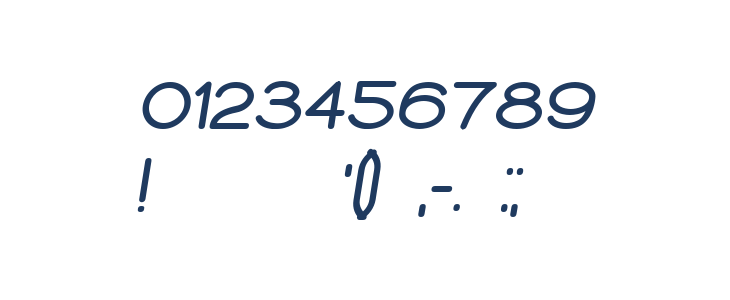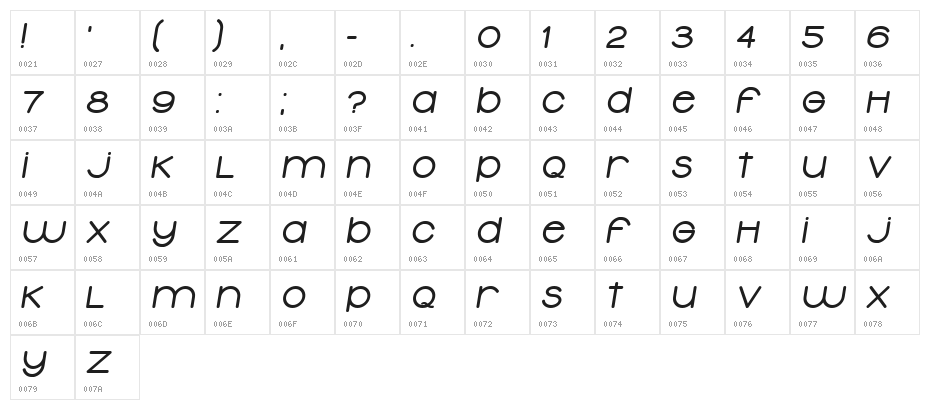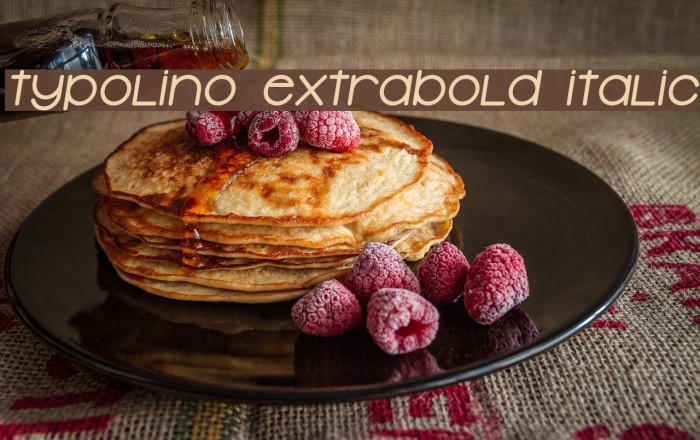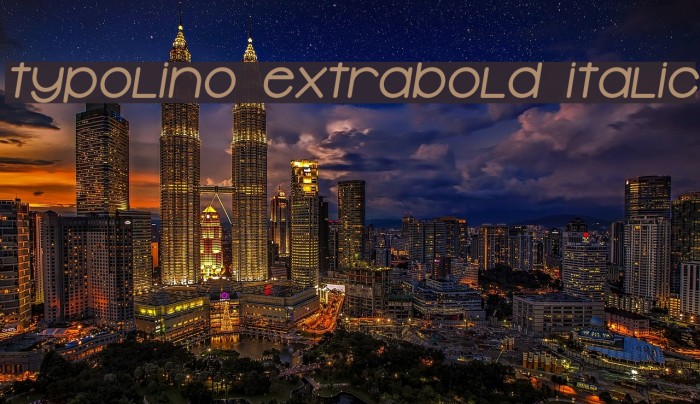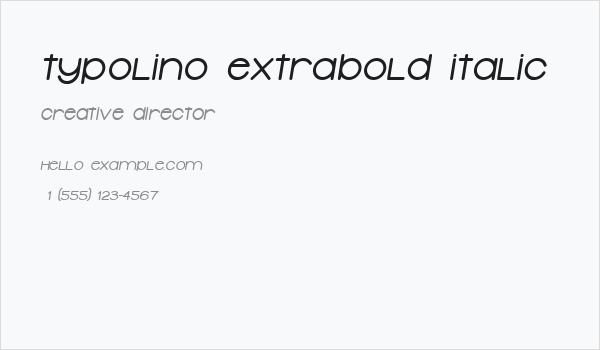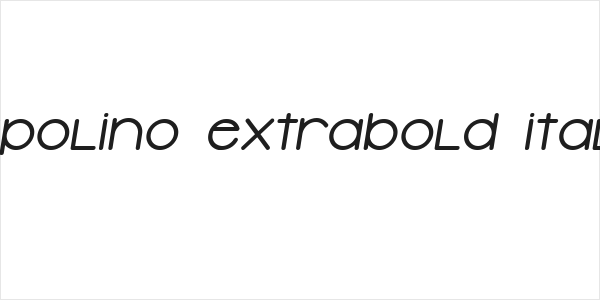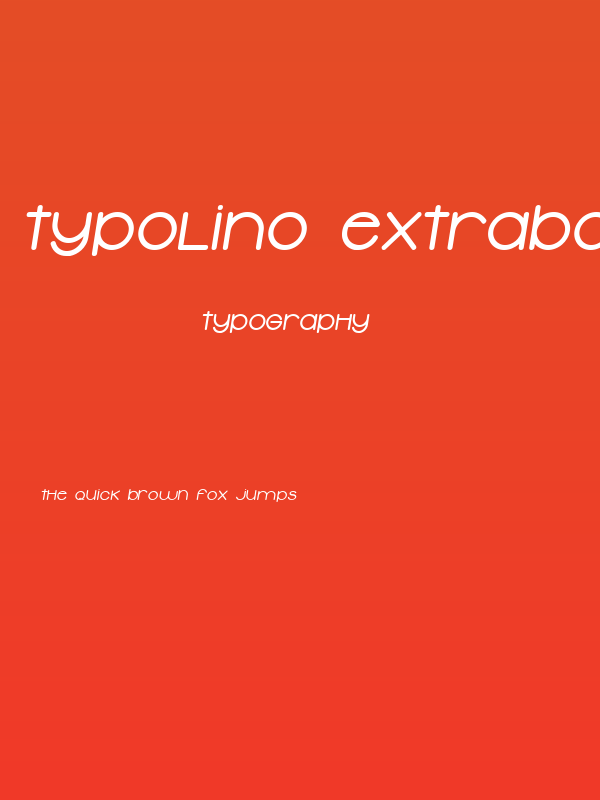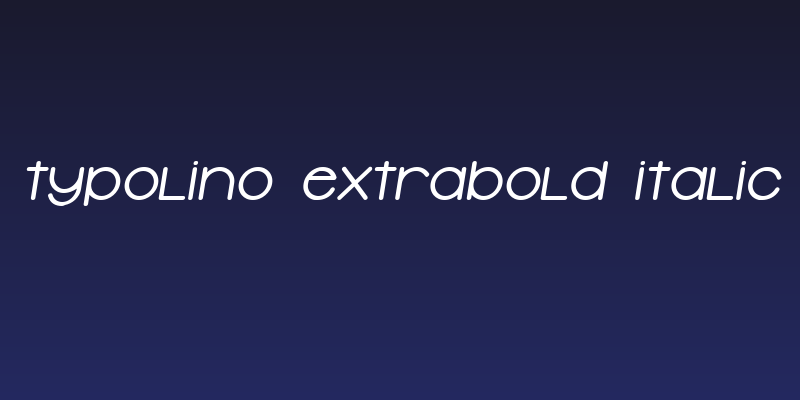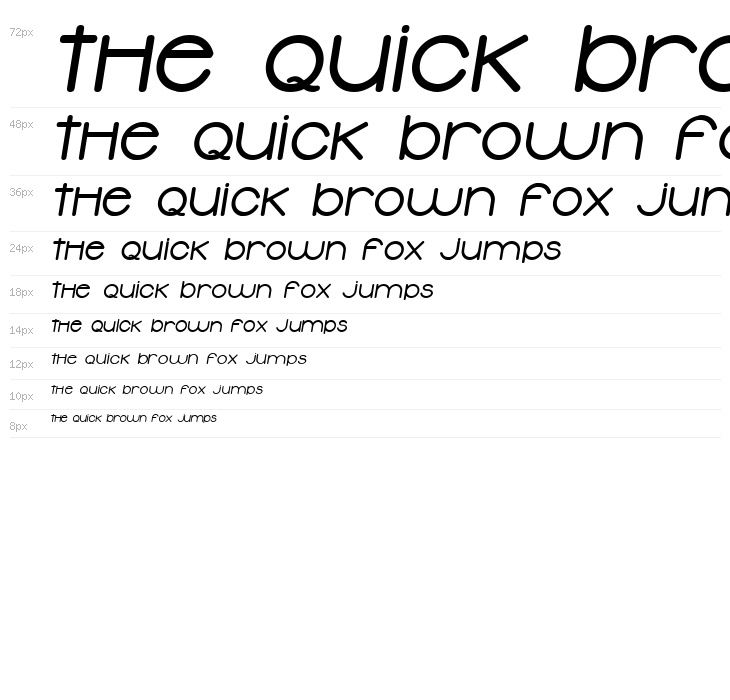
Typolino ExtraBold Italic Font
Typolino ExtraBold Italic Description
This font features a playful and modern design with a rounded, smooth appearance. The characters are bold and italicized, giving them a dynamic and energetic feel. The strokes are consistent in thickness, contributing to a uniform look across all characters. The font maintains a clean and approachable aesthetic, making it suitable for a variety of creative applications. The rounded edges and slight slant add a touch of friendliness and informality, while the bold weight ensures strong visibility and impact.
| Proposed Projects | Ideal for children's books, playful branding, casual invitations, and creative posters. |